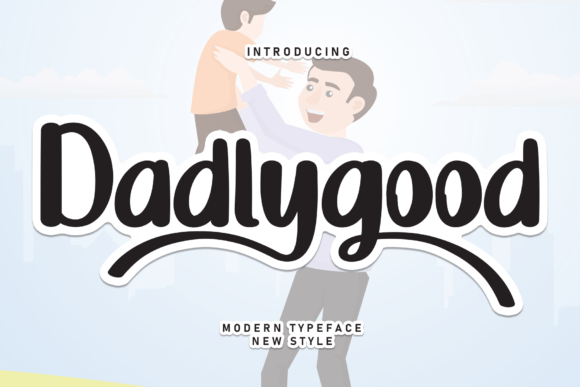
Embark on a delightful journey into the world of Dadlygood Font, a charming script font that exudes warmth and elegance. This exquisite creation by William Jhody is a masterpiece that brings a touch of whimsy to your creative endeavors. Dadlygood is not just a font; it's an experience that captivates your senses, leaving you spellbound with its allure.
Enter a world of beauty where your designs come alive with Dadlygood's enchanting allure. Picture wedding invitations adorned with delicate handwritten lettering, cards that carry heartfelt messages, and designs that radiate a sense of joy and celebration. Dadlygood's playful spirit and captivating charm transform your words into captivating expressions of love, friendship, and happiness.
Whether you're a seasoned designer seeking inspiration or a novice seeking a font that elevates your designs, Dadlygood is your perfect companion. Its versatility knows no bounds, effortlessly adapting to various creative projects, from logos and branding to social media graphics and website designs.
With Dadlygood, you can craft designs that resonate with your audience, leaving a lasting impression that lingers in their minds. Its carefully crafted letters, each with its unique personality, add a human touch to your creations, making them stand out from the crowd.
Join the creative revolution and unlock the endless possibilities of Dadlygood. Let your imagination soar as you explore the world of typography with this remarkable font. Dadlygood is more than just a font; it's an investment in your creativity, a gateway to endless design possibilities. Experience the magic of Dadlygood today and embark on a creative journey that will leave you awe-inspired.